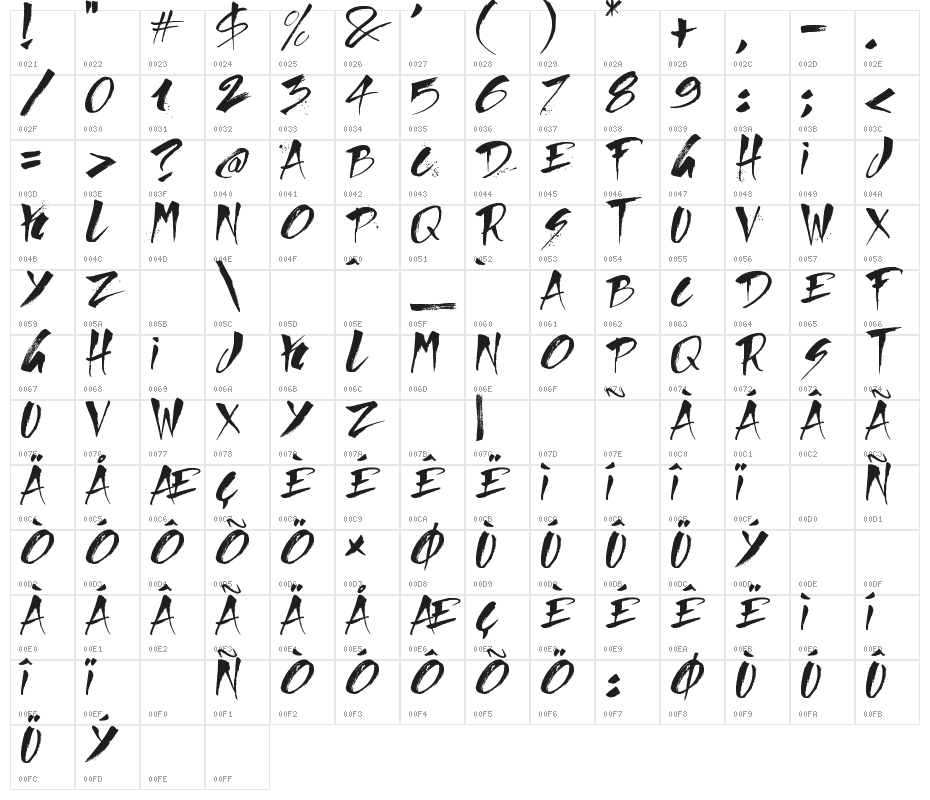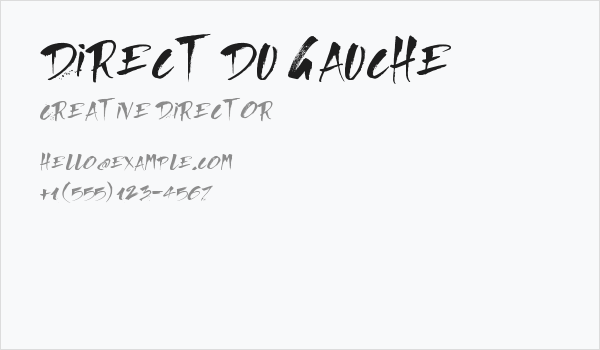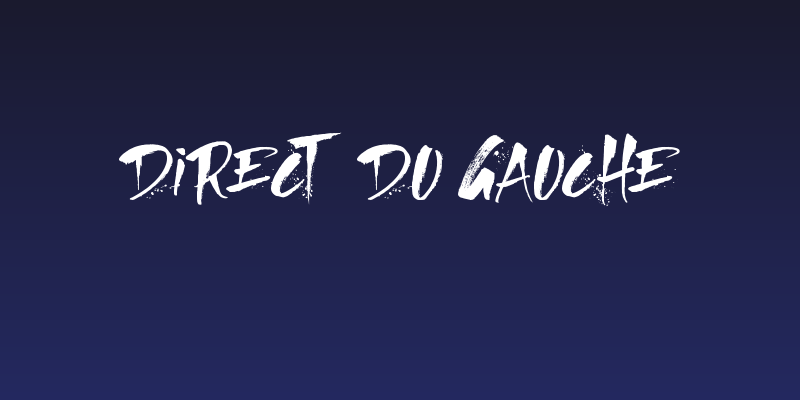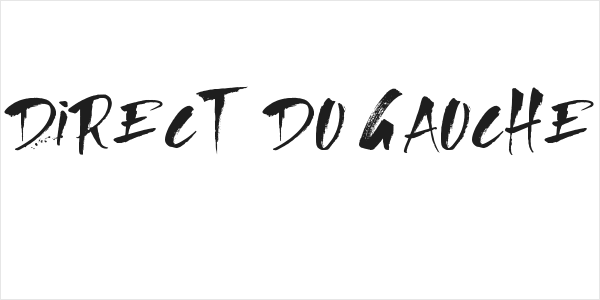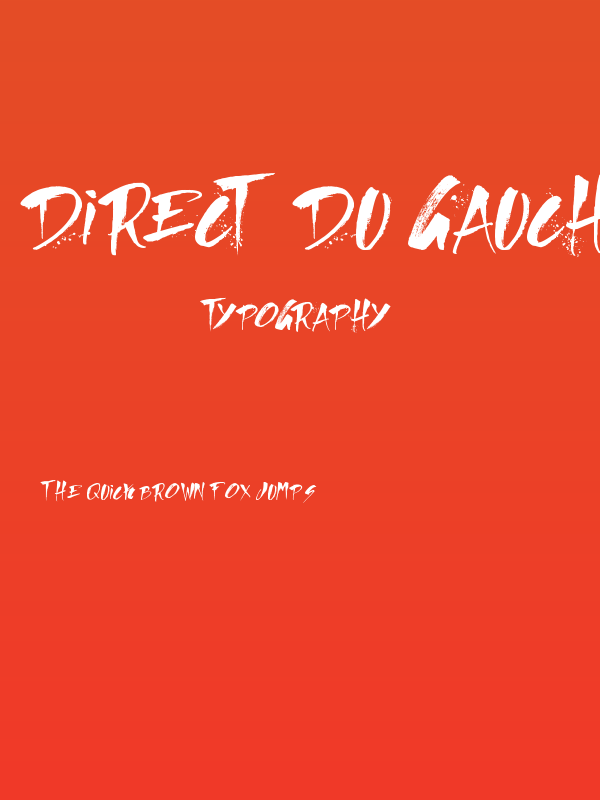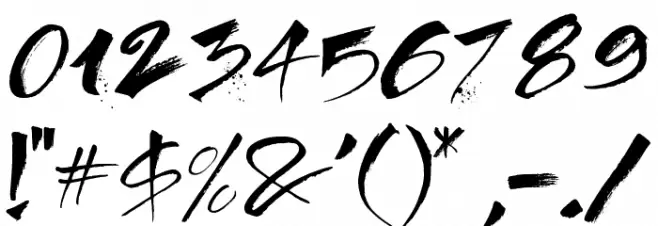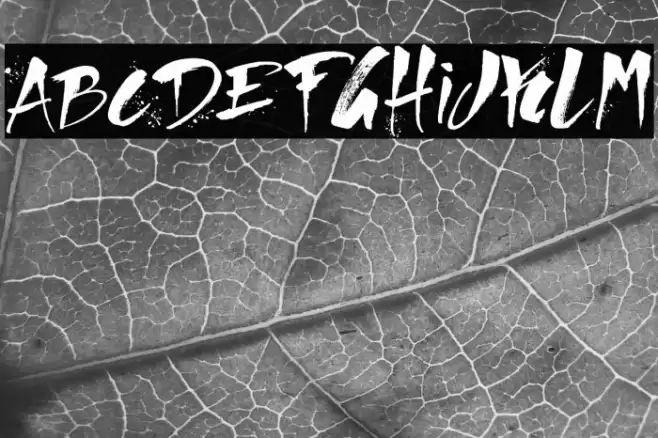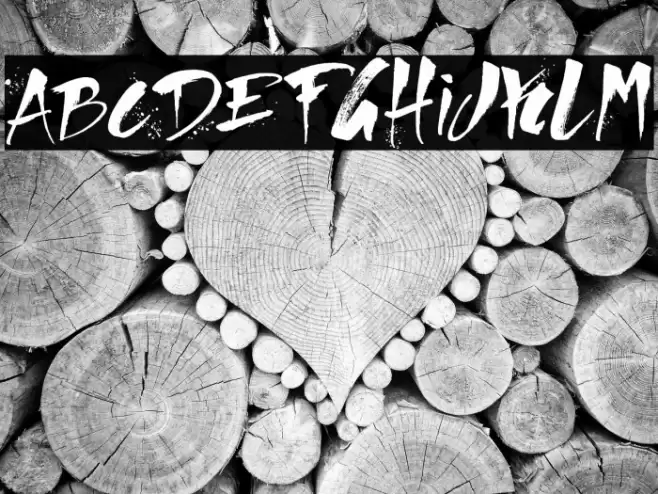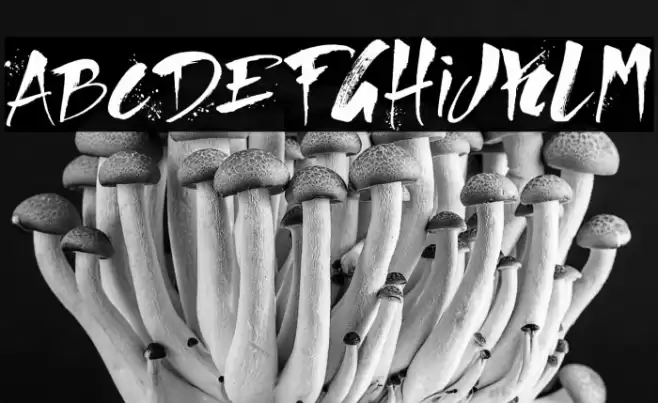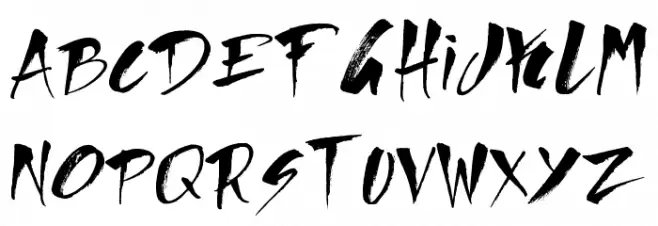
Direct du Gauche Font
Direct du Gauche Description
This font features a bold, expressive style with a brush-like texture that gives it a dynamic and energetic appearance. The strokes are irregular and have a hand-painted quality, adding a sense of movement and spontaneity. The uppercase and lowercase letters maintain a consistent flow, while the numbers and special characters complement the overall aesthetic. The rough edges and varying stroke widths contribute to its raw and artistic feel, making it suitable for projects that require a strong visual impact.
| Proposed Projects | Ideal for posters, album covers, branding, and any creative projects that require a bold and artistic touch. |